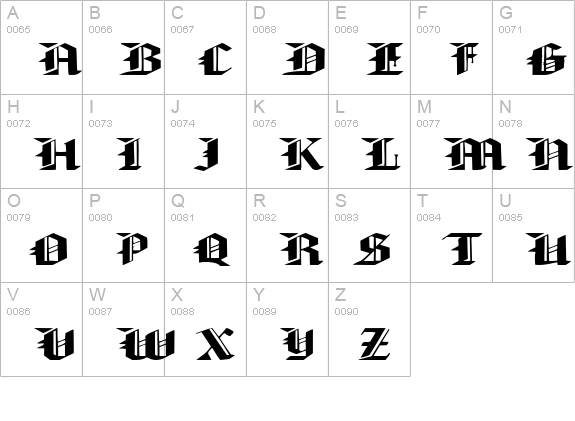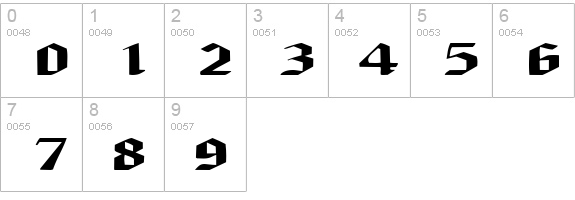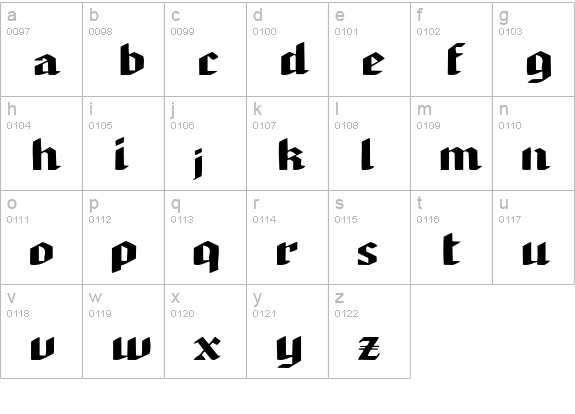
ArmedaExpandedSSK Bold Font Details
ArmedaExpandedSSK Bold is a strong, high-contrast variant in the ArmedaExpandedSSK typeface family \xE2\x80\x94 well suited to headlines, attention-grabbing titles, and strong calls-to-action.
ArmedaExpandedSSK Bold font is a striking and bold typeface that commands attention with its strong and powerful presence. Its thick and sturdy letterforms make a statement in any design project, adding a sense of boldness and confidence. Perfect for headlines, posters, and branding materials, this font exudes a sense of authority and strength. What makes ArmedaExpandedSSK Bold font even more appealing is that it is available for free download at FontsMarket.com. This means you can easily access this impressive typeface without any cost, making it a valuable addition to your font collection. Don't miss out on the opportunity to enhance your designs with this impactful and free font. Download ArmedaExpandedSSK Bold today and take your projects to the next level!